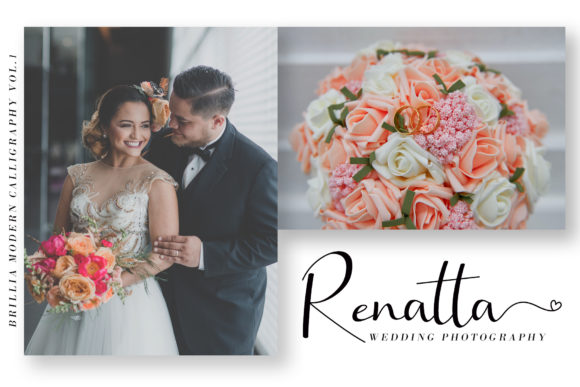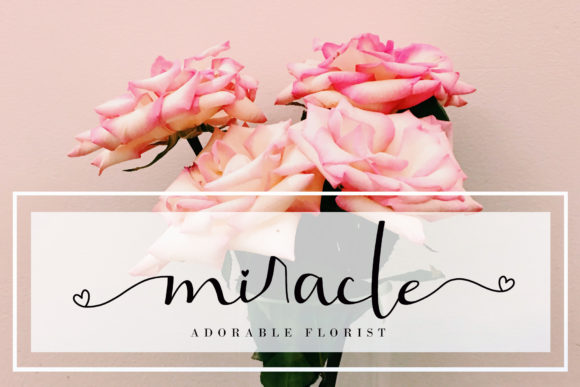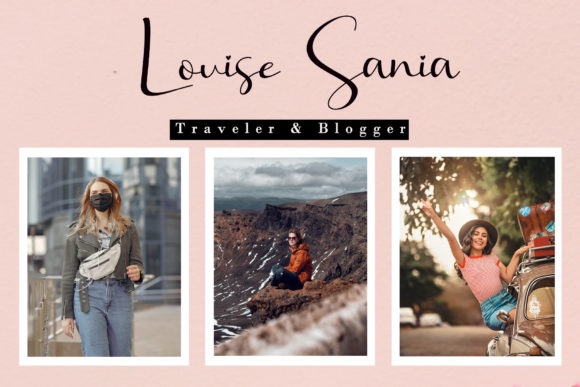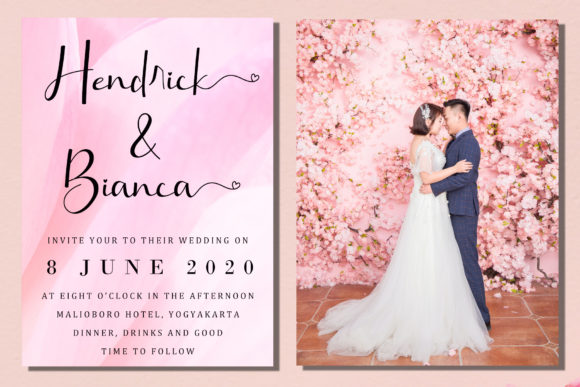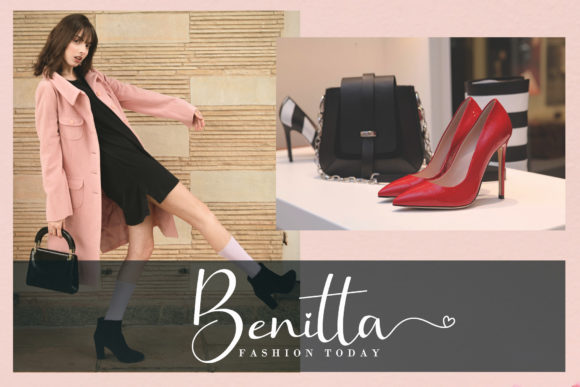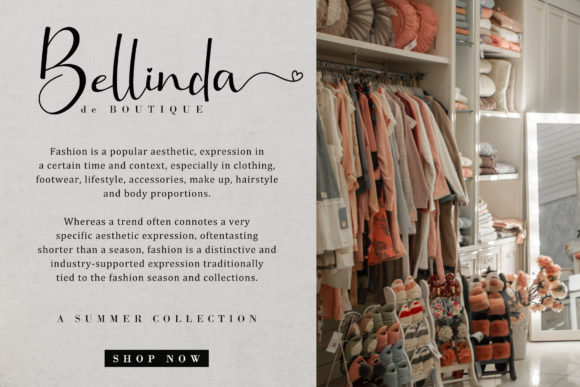
Discover the Charm of Brillia Font: A Sweet Modern Calligraphy for Your Creative Projects
Are you a designer or crafter looking for a font that can add a touch of elegance and whimsy to your creations? Look no further than Brillia Font, a sweet modern calligraphy that is sure to capture your heart. With its soft, hand-lettered handwritten style, Brillia is the perfect choice for a variety of projects, from wedding invitations and stationary art to social media posts and greeting cards.
What Makes Brillia Font So Special?
Brillia Font is a unique and authentic font that is designed to give your projects a personal and handmade feel. Its soft, flowing lines and delicate curves make it perfect for creating beautiful and eye-catching designs that are sure to stand out. Whether you’re looking to create a romantic wedding invitation or a cute greeting card, Brillia Font is the perfect choice.
Uses for Brillia Font
Brillia Font is incredibly versatile and can be used for a wide range of projects, including:
- Wedding Invitations: Create beautiful and romantic wedding invitations that will set the tone for your special day.
- Stationary Art: Add a touch of elegance to your stationary art with Brillia Font’s soft, hand-lettered style.
- Social Media Posts: Make your social media posts stand out with Brillia Font’s eye-catching and whimsical style.
- Greeting Cards: Create cute and personalized greeting cards for any occasion.
Why Designers and Crafters Love Brillia Font
Designers and crafters love Brillia Font for its unique and authentic style, which adds a personal touch to any project. Here are just a few reasons why:
- Easy to Read: Despite its delicate curves and flowing lines, Brillia Font is easy to read and understand, making it perfect for a wide range of projects.
- Highly Versatile: Brillia Font can be used for a wide range of projects, from formal wedding invitations to cute greeting cards.
- Unique and Authentic: Brillia Font’s soft, hand-lettered style gives it a unique and authentic feel that is sure to set your projects apart.
Tips for Using Brillia Font
Here are a few tips for using Brillia Font in your projects:
- Pair with Other Fonts: Brillia Font pairs well with other fonts, such as bold sans-serif fonts or elegant script fonts.
- Experiment with Colors: Brillia Font looks great in a variety of colors, from soft pastels to bold brights.
- Add Decorations: Consider adding decorations, such as flowers or greenery, to give your projects an extra touch of elegance.
Brillia Font is a sweet modern calligraphy that is sure to capture your heart. With its soft, hand-lettered handwritten style, Brillia is the perfect choice for a wide range of projects, from wedding invitations and stationary art to social media posts and greeting cards. Whether you’re a designer or crafter, Brillia Font is a must-have in your font collection.